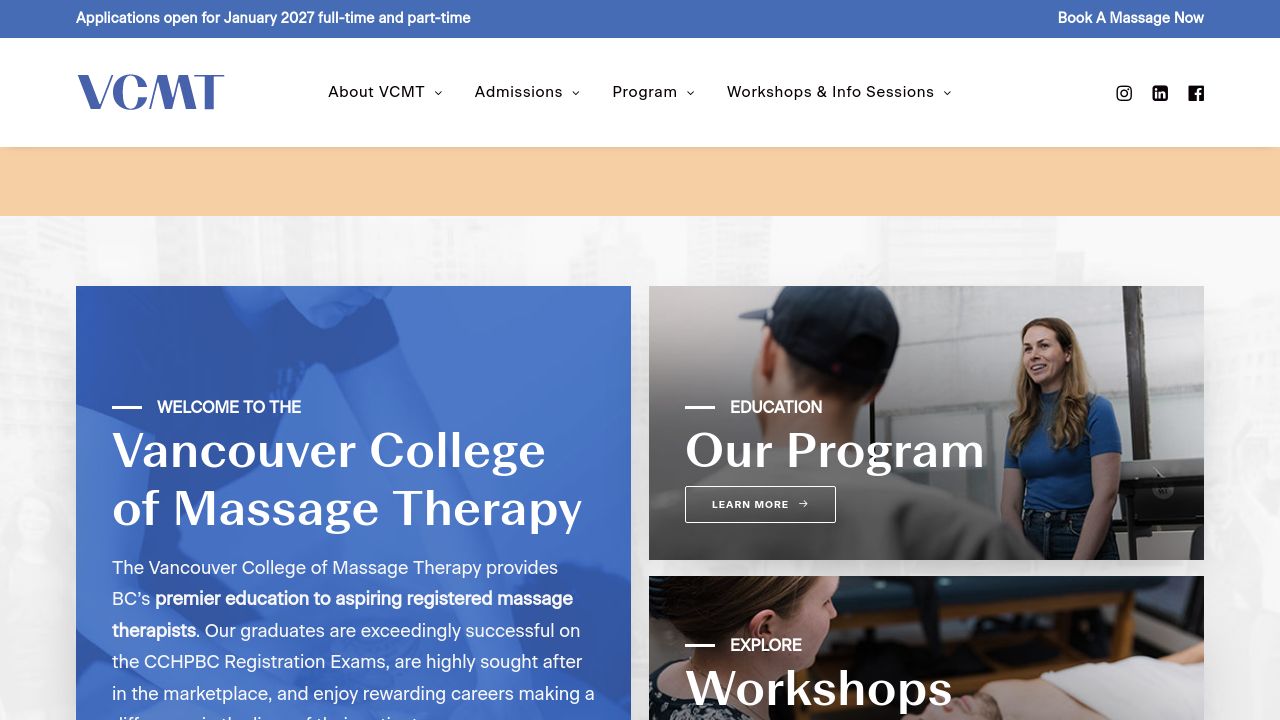
At vcmt.ca, the choice of typography is integral to their identity as a massage therapy college. The use of Helvetica and BeausiteFit in their branding conveys clarity and approachability, essential for connecting with students and clients. Additionally, the custom fonts like uncodeicon and awsmicon enhance their visual communication while maintaining a professional appearance. This thoughtful selection of typefaces reflects the college's commitment to quality education in a welcoming environment.
vcmt.ca primarily uses Helvetica and BeausiteFit, along with custom fonts like uncodeicon and awsmicon. These choices enhance their visual identity.
Helvetica is a widely used sans-serif typeface known for its readability, while BeausiteFit offers a distinctive style that complements the college's branding. Both serve well in educational contexts.
The primary fonts include Helvetica in weight 400 and BeausiteFit also in weight 400. BeausiteClassic is available in Regular (400) and Bold (700) weights, enhancing versatility.